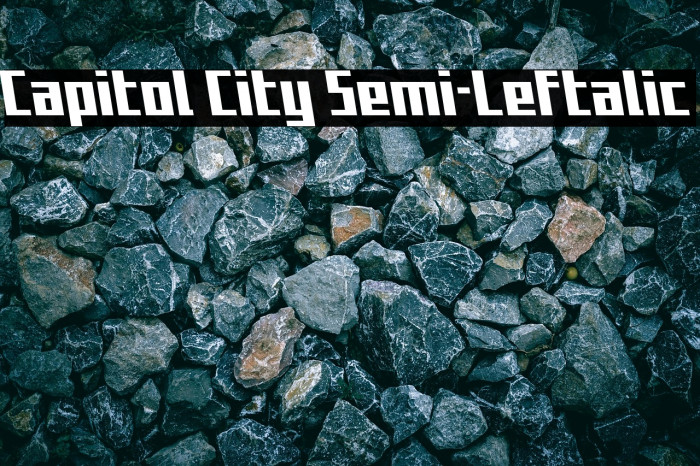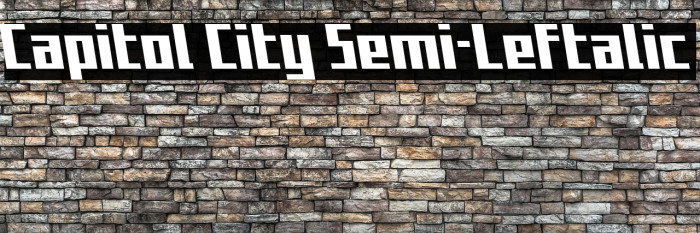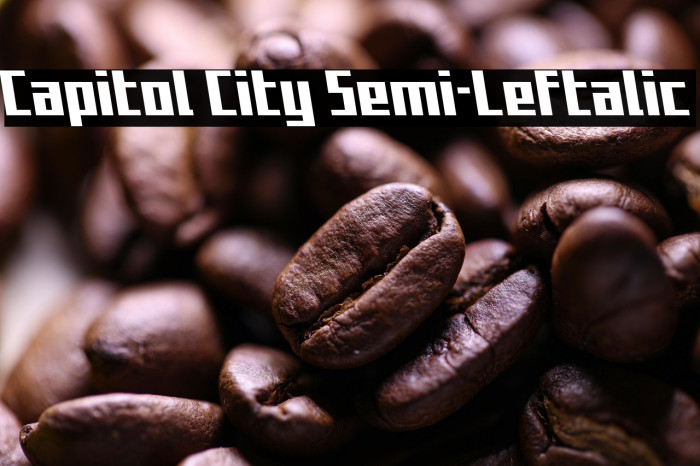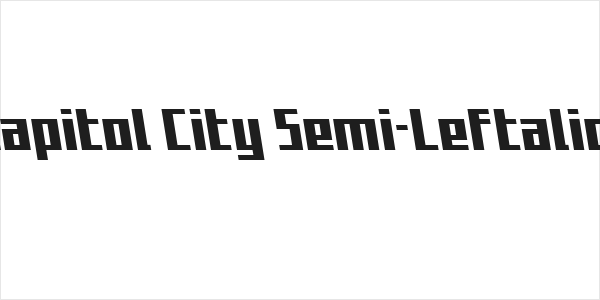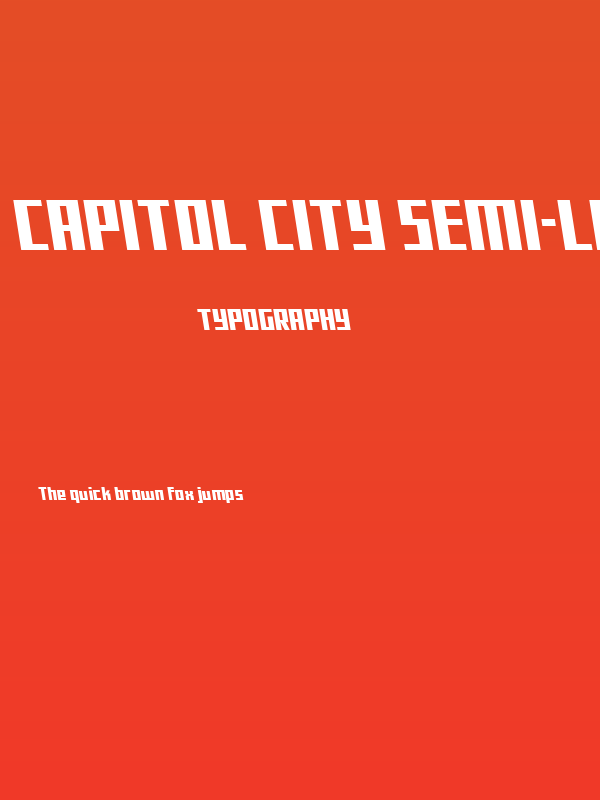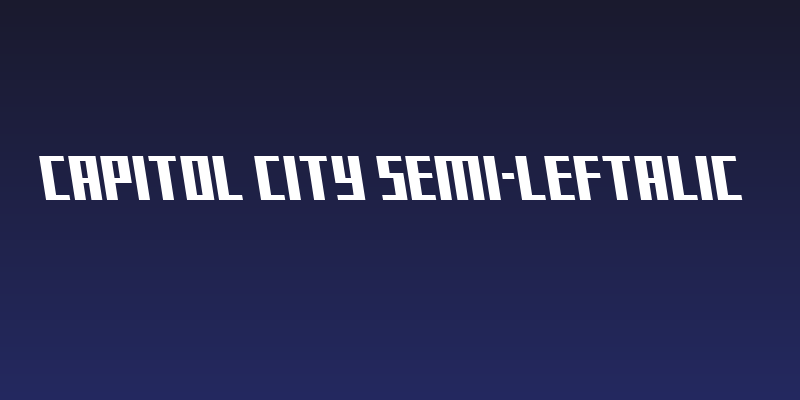
Capitol City Semi-Leftalic Font
Capitol City Semi-Leftalic Description
This font features a bold and angular design with a distinct slant to the left, giving it a dynamic and modern appearance. The characters are blocky with sharp edges, creating a strong visual impact. The uppercase and lowercase letters maintain a consistent style, with the lowercase being slightly smaller but equally bold. Numbers and special characters follow the same angular and bold design, ensuring uniformity across all glyphs. The overall look is futuristic and assertive, making it suitable for attention-grabbing headlines or branding that requires a strong presence.
| Proposed Projects | Ideal for futuristic branding, bold headlines, posters, and digital media that require a strong visual impact. |